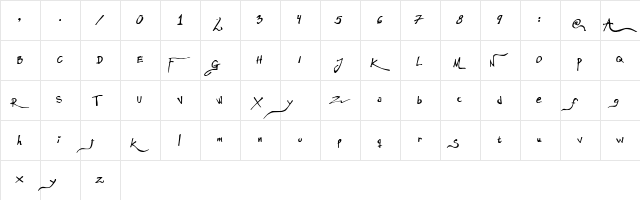
Anarchistic No leaders..
Design Context for Anarchistic Typeface
Anarchistic is a composed and adaptable typeface that performs quietly and consistently across a wide range of design contexts.